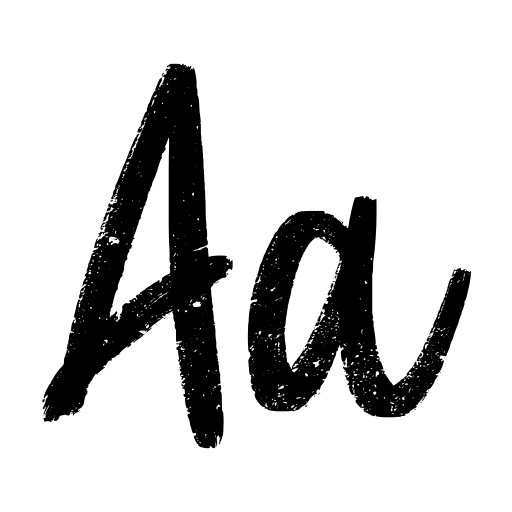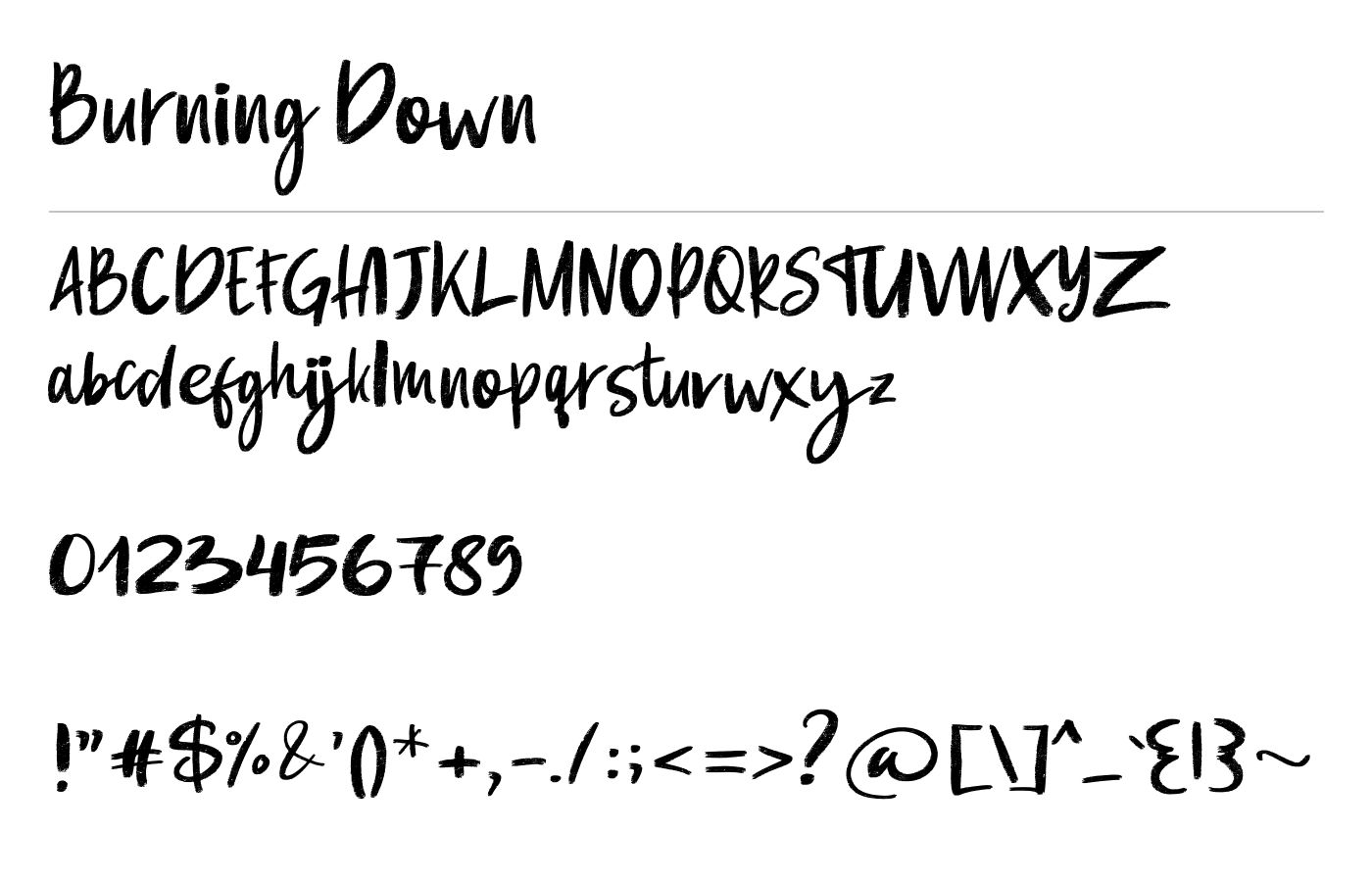
Burning Down is a bold, expressive handwritten font with a rough, brushstroke style that conveys energy and personality. Its slightly irregular, casual letterforms make it perfect for creative projects, logos, and headlines that want to feel dynamic and authentic. This font works well for designs that aim to grab attention with a raw, artistic vibe.
Burning Down Font
About Burning Down Font
| Font family | Burning Down Font |